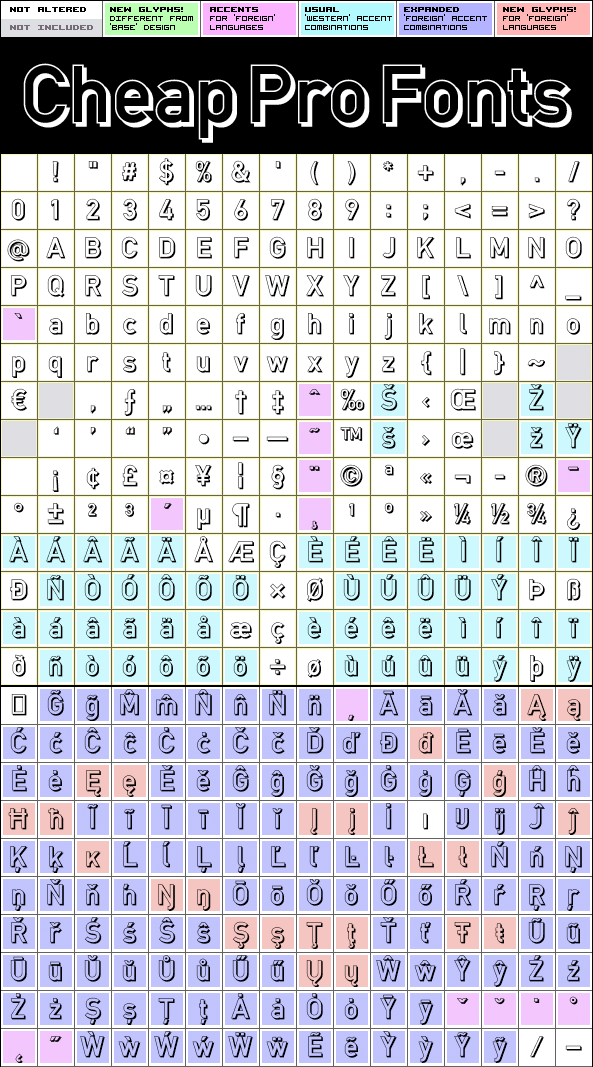
DINfun Pro Shadow
DINfun Pro Shadow by Roger S. Nelsson
379 glyphs!
632 class kernpairs
= 12027 kerning pairs
A dropshadow variant of the classic DIN 1451 Mittelschrift - for that comic/cartoon look ;)
Two variants included: one has been spaced a bit looser and kerning tweaked to avoid letter collisions, the other has the same metrics and kerning as the Plain version (so you can use the Plain version to fill it in by layering them ;)
DINfun Pro Shadow is a professionally reworked font that contains an extended character set for setting text in 65 languages requiring more than the basic A-Z!